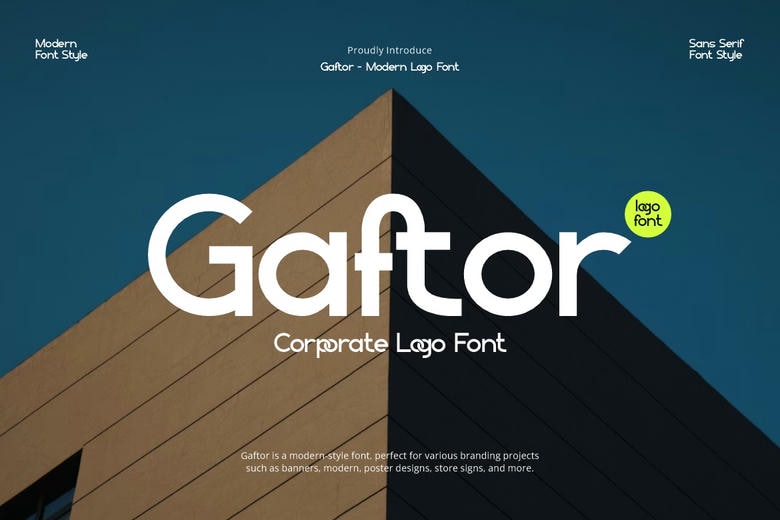
Gaftor Font
Gaftor Font is the bold and natural display font that is applicable in a variety of design requirements. We provide a variety of themes and font types – you can find out more and choose the ideal style to use in your project going to our profile.
Gaftor Sans Serif Font